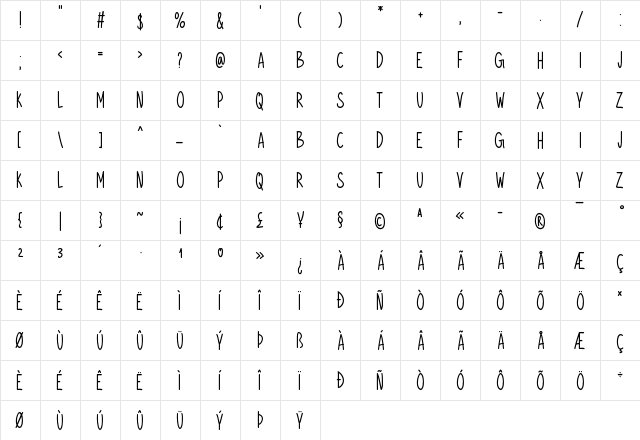
Derivation Regular
Design Context for Derivation Typeface
Derivation is a composed and adaptable typeface that performs quietly and consistently across a wide range of design contexts.